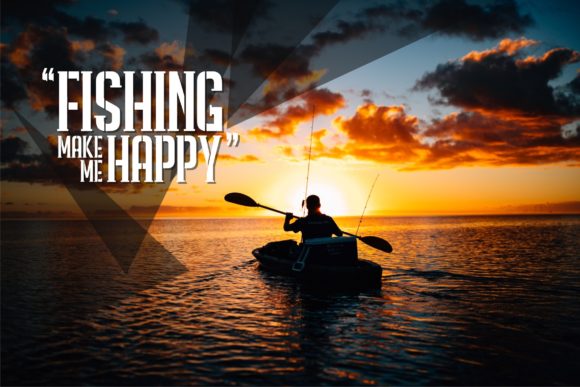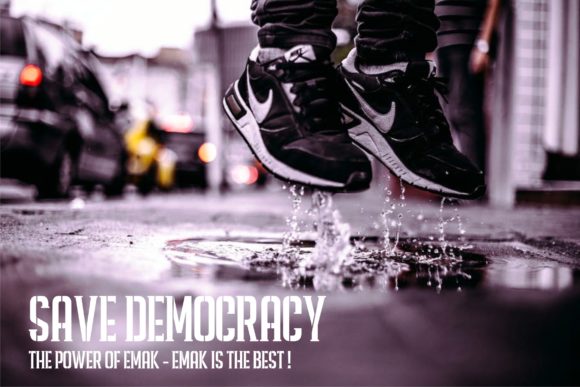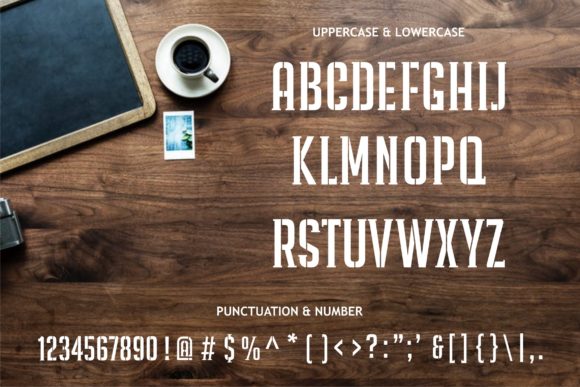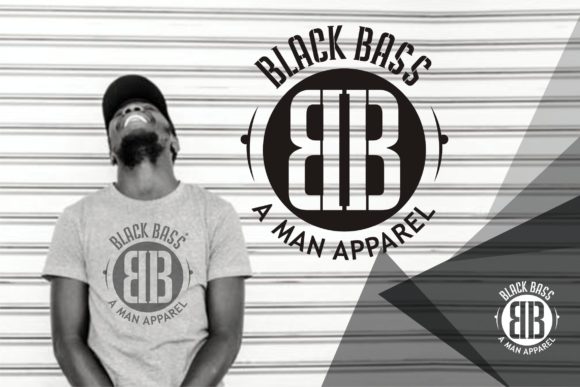
The Perfect Typography for Making a Statement
Remember that moment when you finally find the perfect font to match your creative vision? It’s like a spark of inspiration, a rush of excitement, and a sense of accomplishment all at once. For designers, finding the right typography can be the difference between a good design and a great one. And, for those looking to add some edge to their work, there’s one font that stands out from the rest – the Bripokus Font.
This bold condensed stencil typeface is not just a pretty face; it’s a powerful tool that can elevate your designs and leave a lasting impression. Whether you’re working on posters, web headers, book covers, or packaging, the Bripokus Font is the perfect choice for adding a strong and bold feel to your work. Its versatility and unique style make it a valuable addition to any designer’s toolkit, and we can’t wait to explore its possibilities in more detail.
Bripokus Font Key Features
- Font Family: Bripokus is a sans-serif font family designed for modern and clean typography.
- Character Set: Supports a wide range of languages, including Latin, Cyrillic, and Greek scripts, making it an excellent choice for international projects.
- Unique Characteristics: Bripokus features a distinctive geometric shape and a balanced contrast between thick and thin strokes, making it highly legible and visually appealing.
- Font Size and Style Options: Includes a range of font weights, from Light to Extra Bold, allowing users to customize the font to suit their design needs.
Bripokus Font Review
Overall, I was excited to dive into the Bripokus font. Its unique blend of modern and vintage elements has the potential to elevate any design project. ✨ The font’s versatility is one of its strongest suits – it works well in a variety of contexts, from minimalist logos to bold headings.
- Unique blend of modern and vintage elements
- Highly versatile and adaptable
- Works well in a range of font sizes and styles
However, there are a few areas where the Bripokus font falls short. ✨ The font’s kerning can be inconsistent at times, leading to awkward spacing between certain letters. Additionally, the font’s x-height can be a bit too small, making it difficult to read in smaller sizes.
- Inconsistent kerning can lead to awkward spacing
- Small x-height can make text difficult to read
Despite these limitations, I still think the Bripokus font has a lot to offer. With a bit of tweaking and adjustment, it can be a powerful tool in any designer’s toolkit. Overall, I’d give it 3.5 out of 5 stars – it’s a solid choice for designers looking for a unique and versatile font.
Getting the Most Out of Bripokus Font
For best results, use Bripokus Font in headings and titles to add a touch of elegance and sophistication to your design. Experiment with different font sizes and colors to create visual interest.
Bripokus Font is perfect for:
- Business cards and branding materials
- Headings and titles to create an air of mystery and intrigue
- Key phrases and quotes to add depth and meaning to the journal’s content
- Use a combination of watercolor and digital art to create dreamy, ethereal backgrounds
- Add intricate illustrations and patterns to enhance the mystic atmosphere
- As the primary font for the artwork, emphasizing its unique curves and lines
- To create intricate patterns and designs within the artwork
- Use a neutral background to let the Bripokus Font take center stage
Yes, Bripokus Font supports a wide range of languages, including Latin, Cyrillic, and Greek scripts. However, it may not support all languages or scripts, so please check the font’s documentation for specific language support.
Q: Can I customize Bripokus Font to fit my specific design needs?